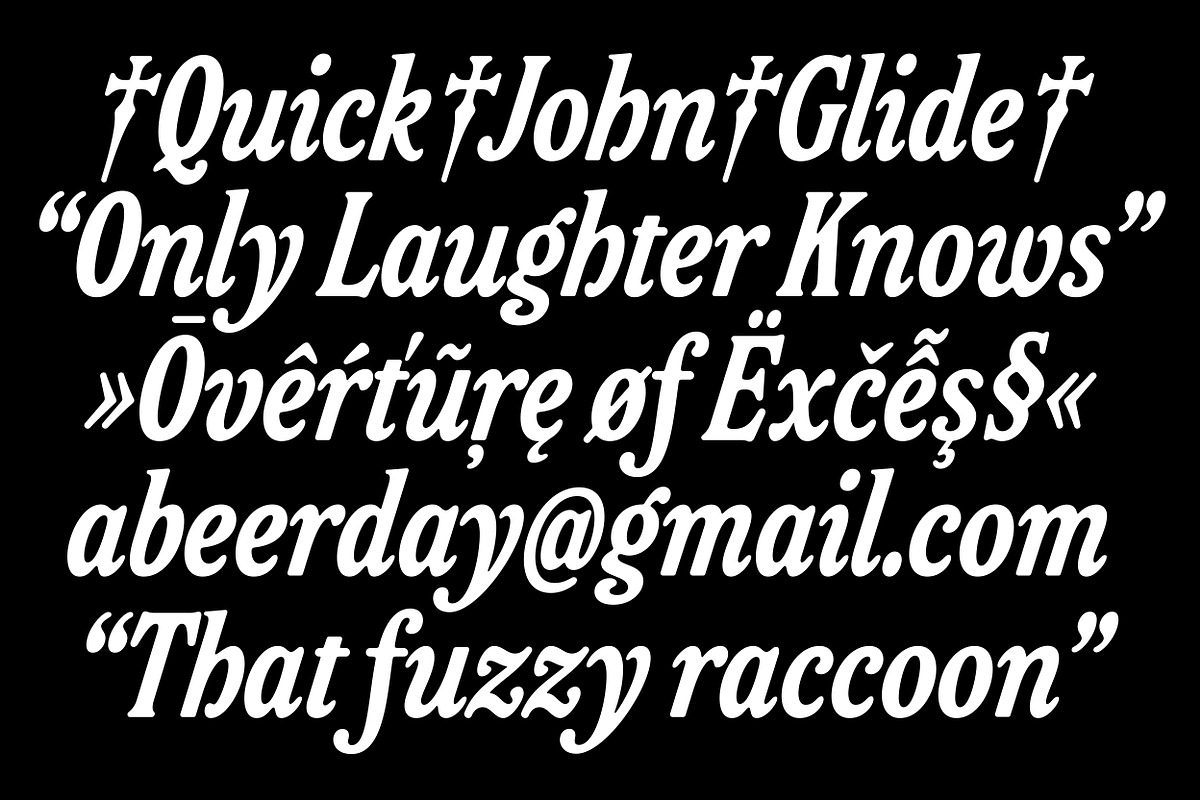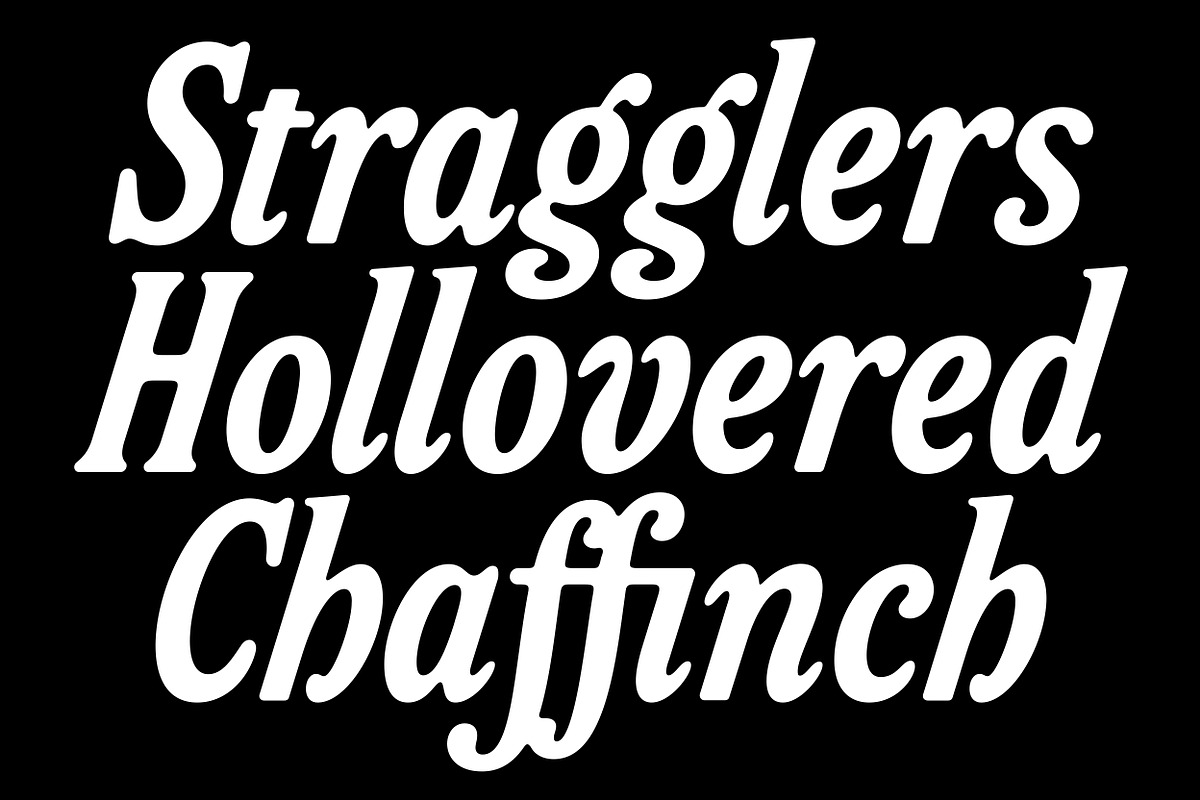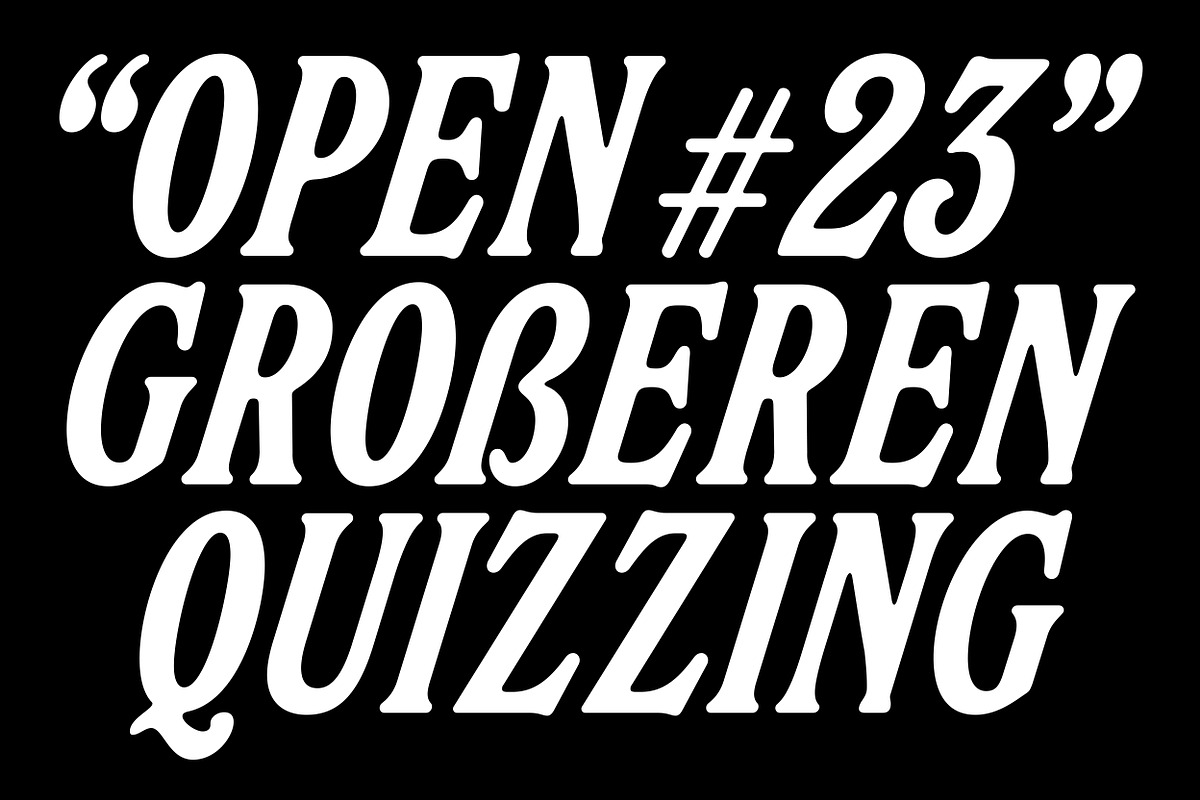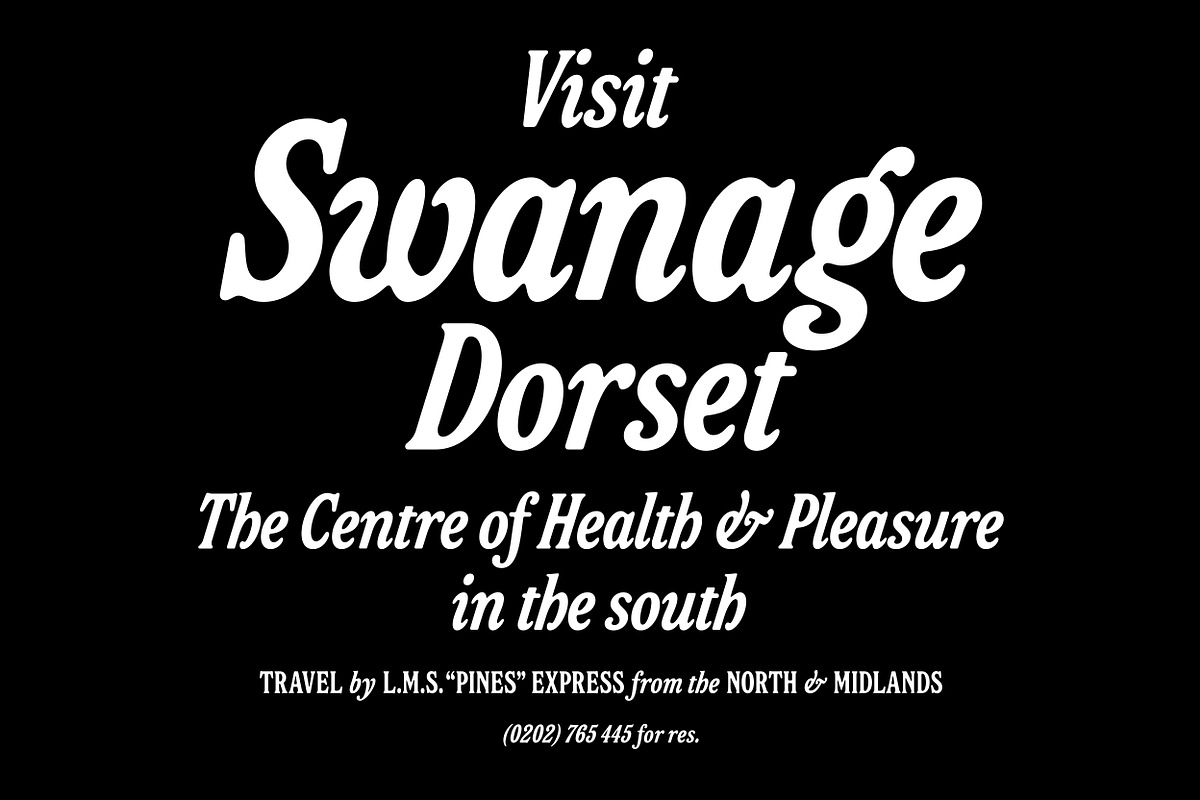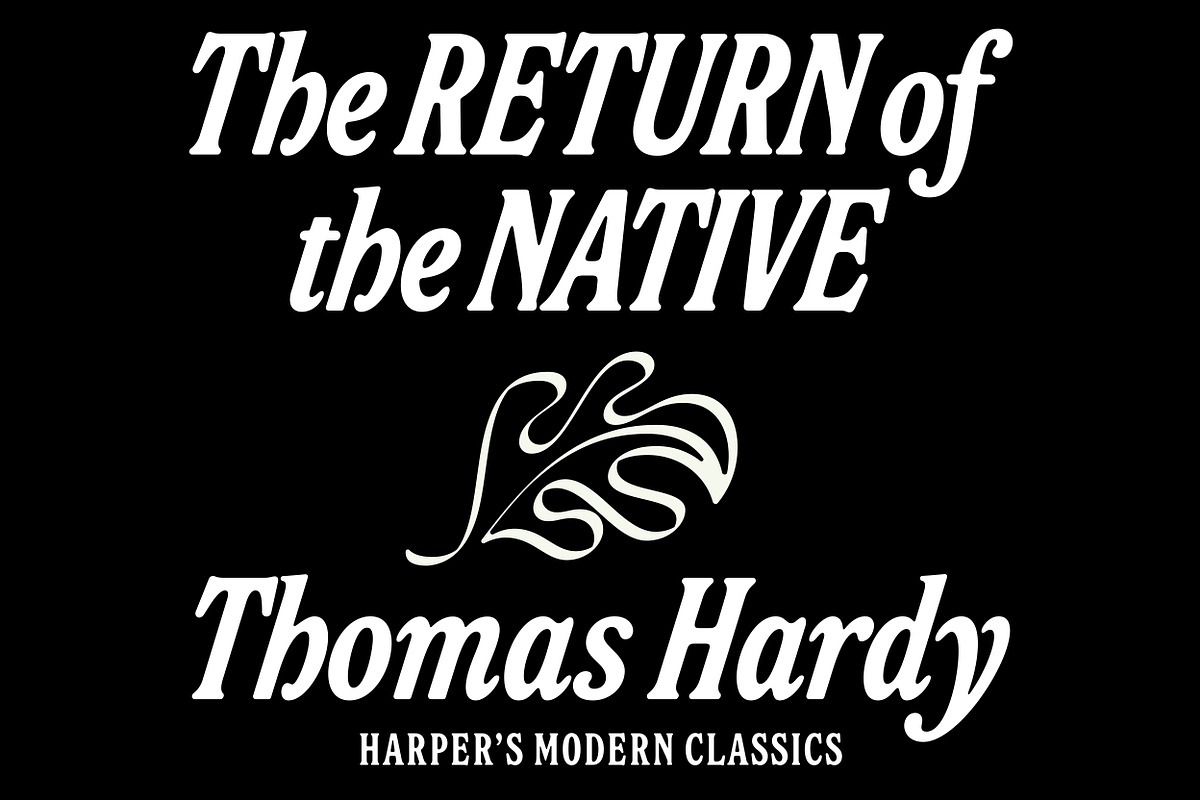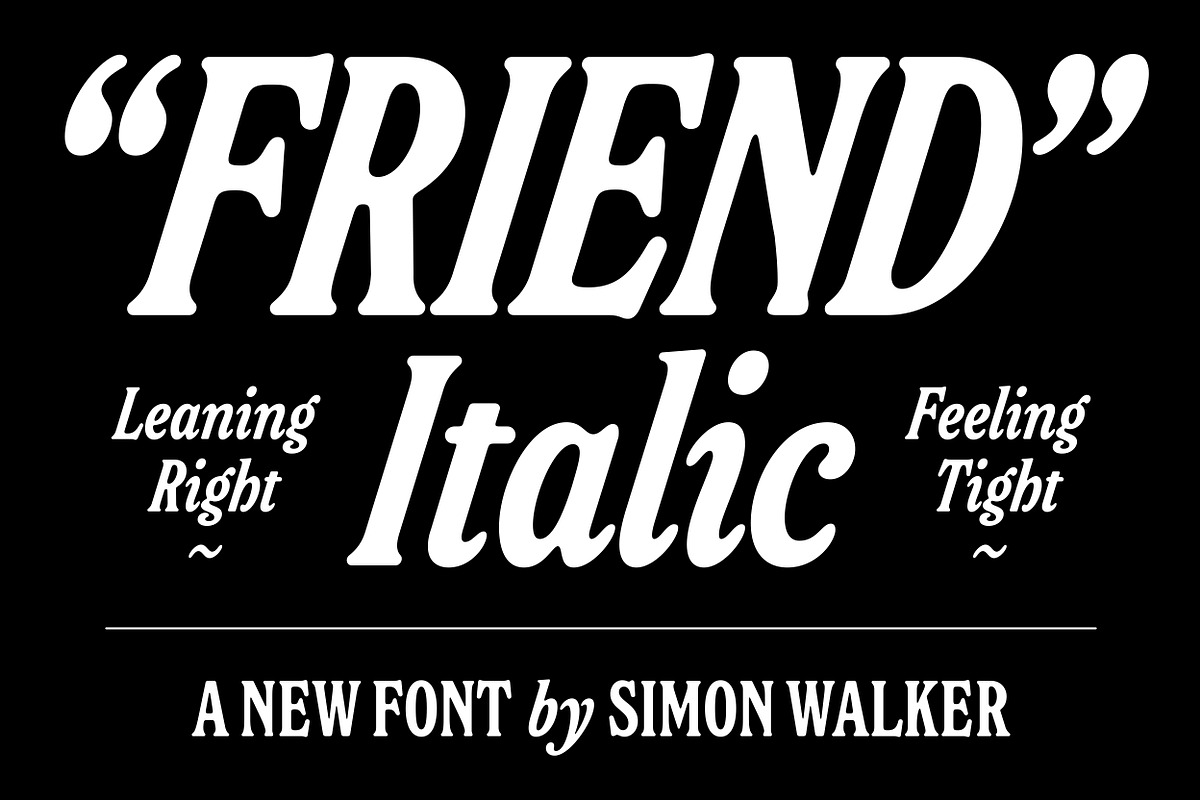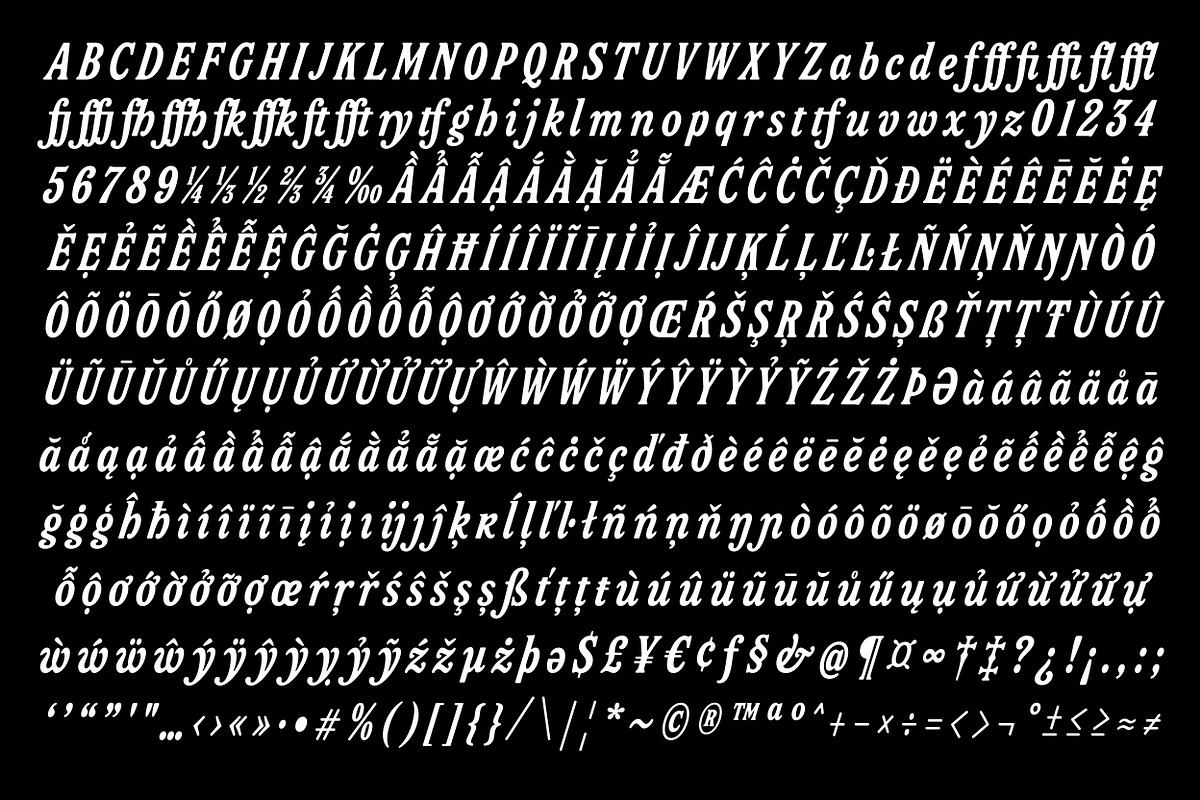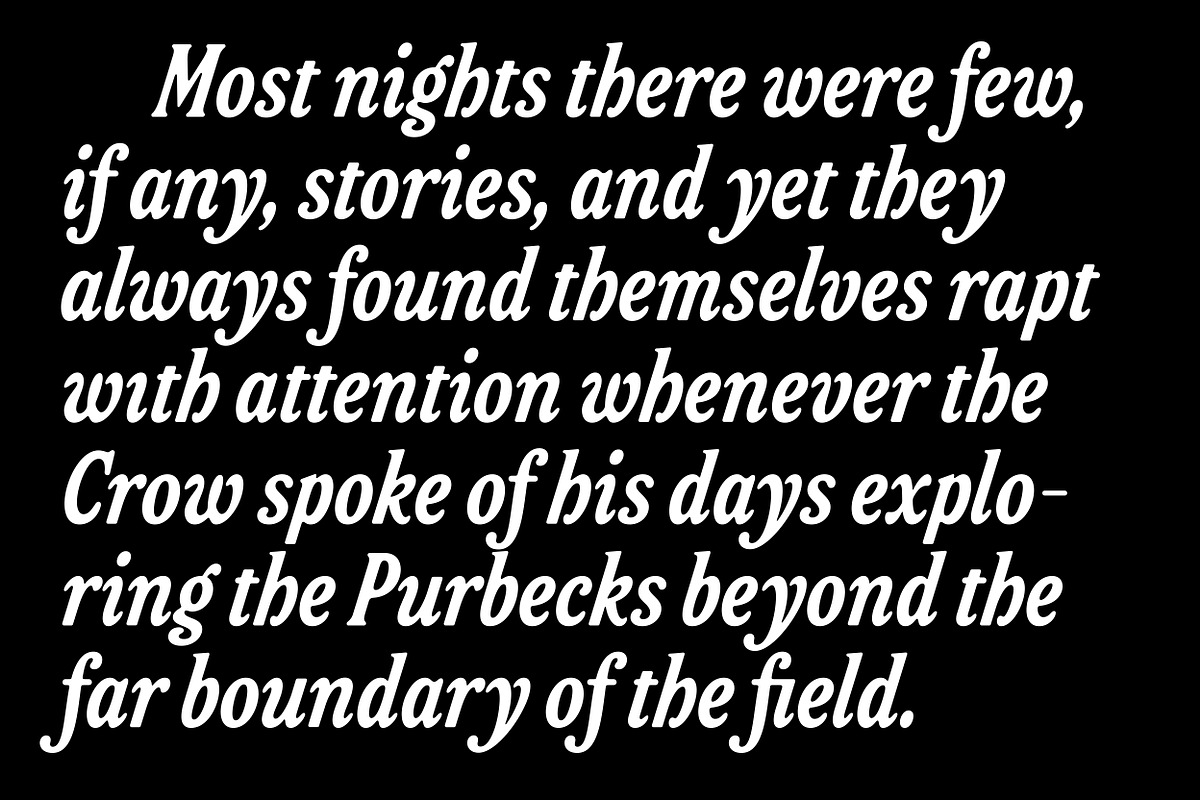
Friend Italic
A friendly, tall, rounded-serif font that also comes in Regular. Check out a sample PDF, here: https://www.dropbox.com/scl/fi/p6bqqp3b1oju9mywrmm6h/friend_sample.pdf?rlkey=9zju1q52cx3y18z5gqhbgjqmz&st=af2d0tzg&dl=0